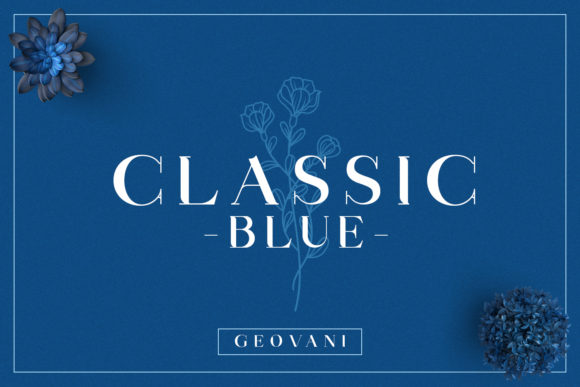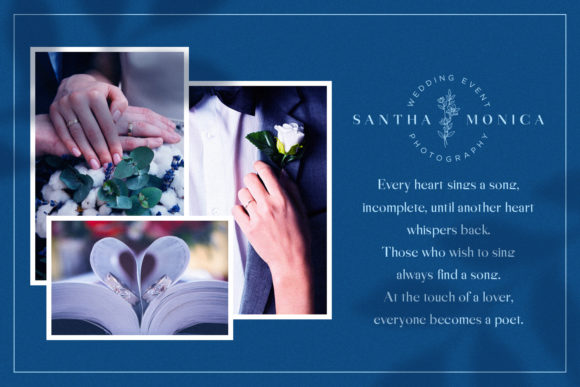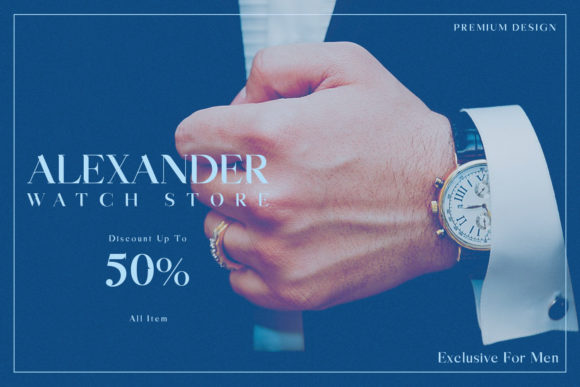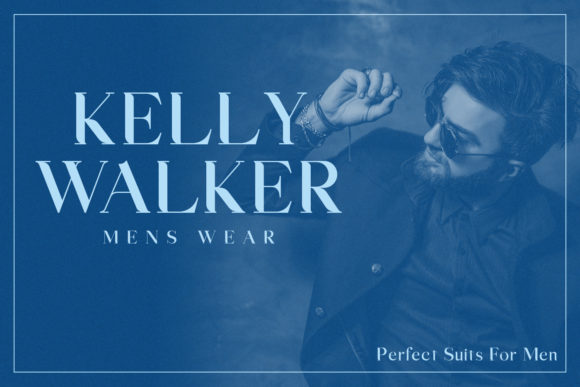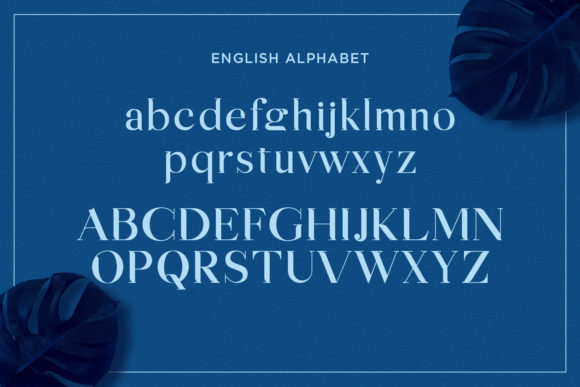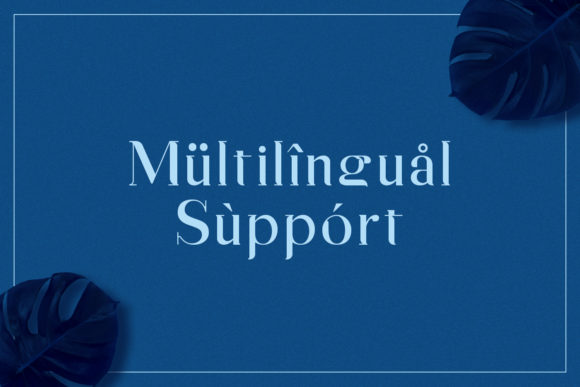
Introducing Geovani Font: Elevate Your Designs with Elegance and Sophistication
Are you looking for a font that exudes luxury, elegance, and sophistication? Look no further than Geovani Font, a modern serif font designed to take your designs to the next level. With its sleek lines, refined features, and classic charm, Geovani is the perfect choice for designers and crafters seeking to add a touch of high-end style to their work.
The Characteristics of Geovani Font
Geovani Font boasts a range of characteristics that make it an ideal choice for designers seeking to create elegant and sophisticated designs. Some of its key features include:
- Modern serif design: Geovani’s serif design gives it a classic, timeless feel that’s perfect for luxury brands, high-end products, and sophisticated designs.
- Sleek lines and refined features: The font’s sleek lines and refined features give it a streamlined, elegant appearance that’s sure to impress.
- High legibility: Geovani’s clear and concise lettering ensures that your text is easy to read, even at small sizes.
- Versatile: Geovani is suitable for a wide range of design applications, from logos and branding to packaging, posters, and more.
Why Choose Geovani Font?
So why should you choose Geovani Font for your next design project? Here are just a few compelling reasons:
- Add a touch of luxury: Geovani’s elegant design instantly elevates your designs, giving them a luxurious and high-end feel.
- Stand out from the crowd: With its unique blend of classic and modern elements, Geovani helps your designs stand out in a crowded marketplace.
- Perfect for branding and identity: Geovani’s sophisticated design makes it an excellent choice for logos, branding, and identity projects.
- Easy to use: Geovani is a straightforward font to use, even for designers who are new to working with serif fonts.
Design Applications for Geovani Font
Geovani Font is an incredibly versatile font that can be used in a wide range of design applications, including:
- Logos and branding: Create a lasting impression with a custom logo or brand identity that exudes elegance and sophistication.
- Packaging design: Elevate your product packaging with Geovani’s luxurious design, perfect for high-end products and premium brands.
- Poster design: Create eye-catching posters that command attention with Geovani’s bold, yet refined features.
- Digital design: Use Geovani in digital designs, such as website headers, social media graphics, and more, to add a touch of sophistication and elegance.
Tips for Using Geovani Font
To get the most out of Geovani Font, here are a few expert tips:
- Pair with contrasting fonts: Combine Geovani with contrasting fonts to create visual interest and add depth to your designs.
- Experiment with colors: Try Geovani with different colors and textures to find the perfect combination for your design.
- Pay attention to spacing: Make sure to leave sufficient spacing between letters and lines to ensure that your text is easy to read.
In conclusion, Geovani Font is an exceptional choice for designers and crafters seeking to add a touch of elegance, luxury, and sophistication to their designs. With its modern serif design, sleek lines, and refined features, Geovani is the perfect font for a wide range of design applications. Whether you’re working on a logo, branding project, packaging design, or digital design, Geovani is sure to elevate your work and leave a lasting impression.